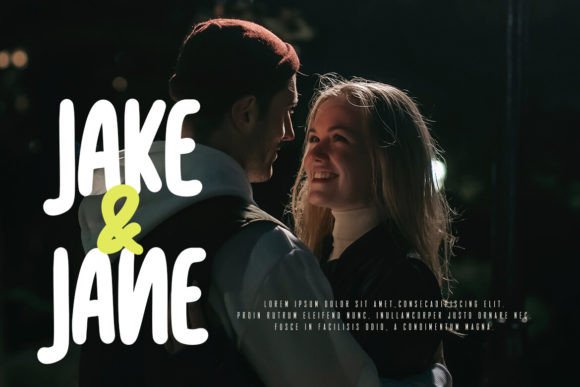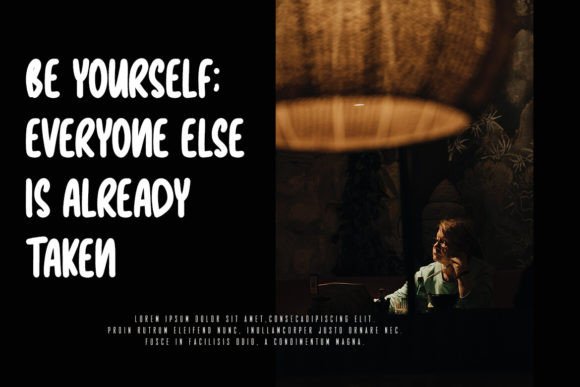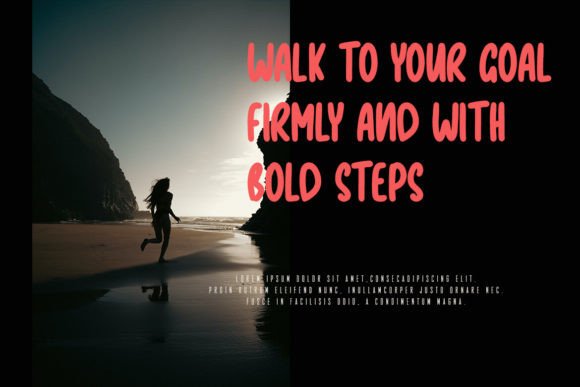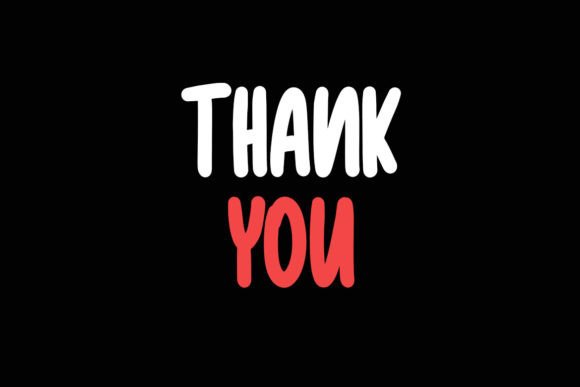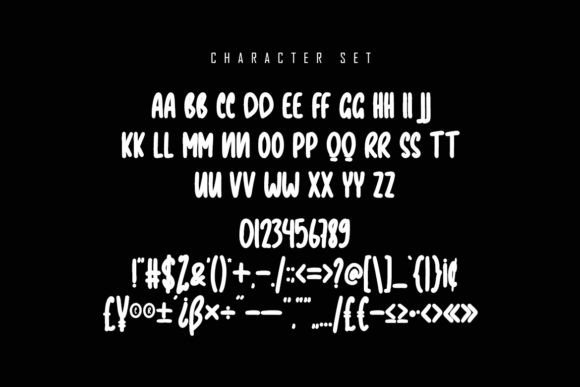
Introduction to Request Font
Imagine you’re brainstorming ideas for a creative project, and you stumble upon the perfect concept – but it’s missing that one crucial element: a font that truly makes it pop. This is where the Request Font comes in – a playful handwritten font designed to add a stylish touch to your headlines and logotype projects.
With its strong, confident, and dynamic feel, the Request Font is perfect for designers looking to give their work an urban character. Whether you’re working on a free download or a high-quality commercial project, this versatile font is sure to elevate your design and leave a lasting impression. Plus, its transparent background makes it easy to incorporate into your designs, without the hassle of complicated backgrounds.
As a valuable design resource, the Request Font is a must-have for any creative project. Its unique personality and urban flair make it an ideal choice for designers looking to stand out from the crowd and make a lasting impression on their audience.
Key Features of Request Font
- Each font is carefully crafted to provide a unique and stylish touch to any creative project, from logos to graphics and more.
Honest Review: Request Font
I recently came across the Request Font and was excited to put it to the test in my latest creative project. As a designer, I’m always on the lookout for high-quality design resources that can elevate my work.
The Request Font did not disappoint. It’s a beautifully crafted font that’s perfect for a variety of creative projects. Here are some things that stood out to me:
- ✨ High-quality design: The font is well-designed and looks great on both light and dark backgrounds.
- ⚠️ Limited language support: The font only supports a limited number of languages, which may be a problem for designers working on international projects.
- ⚠️ Not ideal for large-scale use: While the font is great for smaller projects, I found that it wasn’t suitable for large-scale use due to its limited scalability.
Overall, I’m impressed with the Request Font and would recommend it to designers working on smaller creative projects. With its high-quality design and transparent background, it’s a great addition to any design resource library.